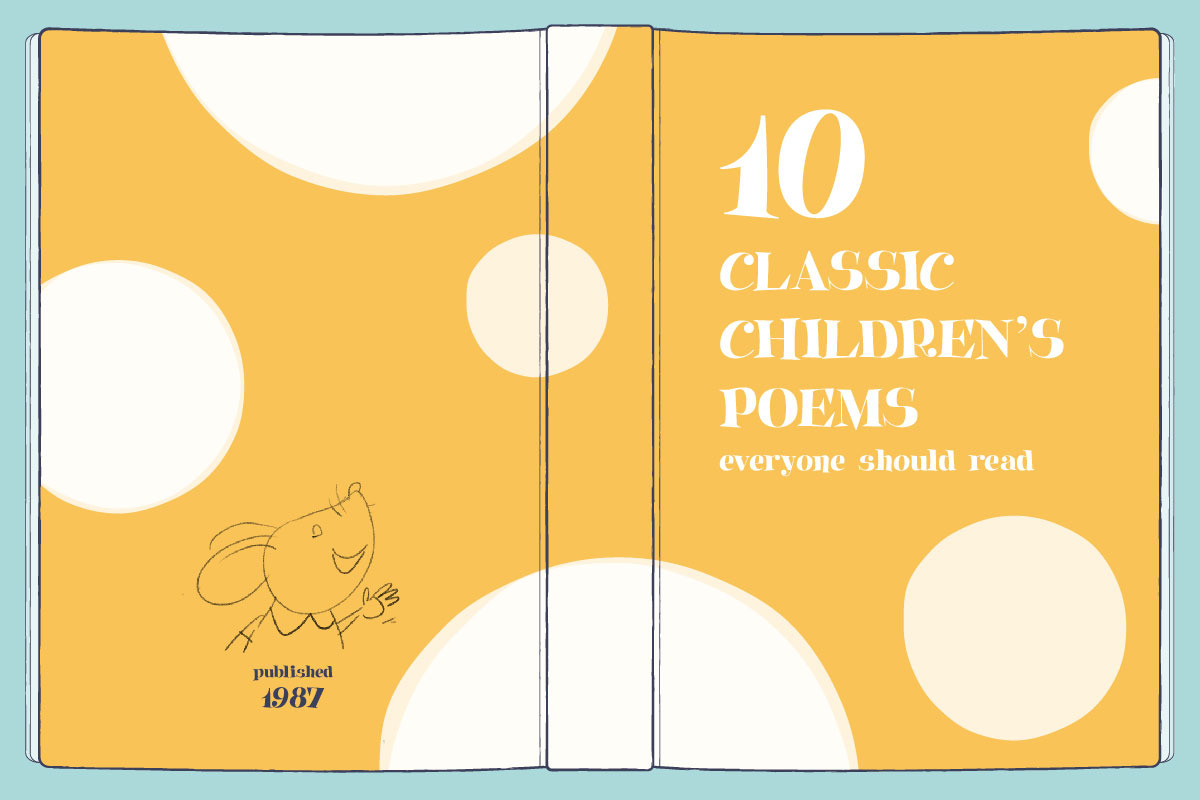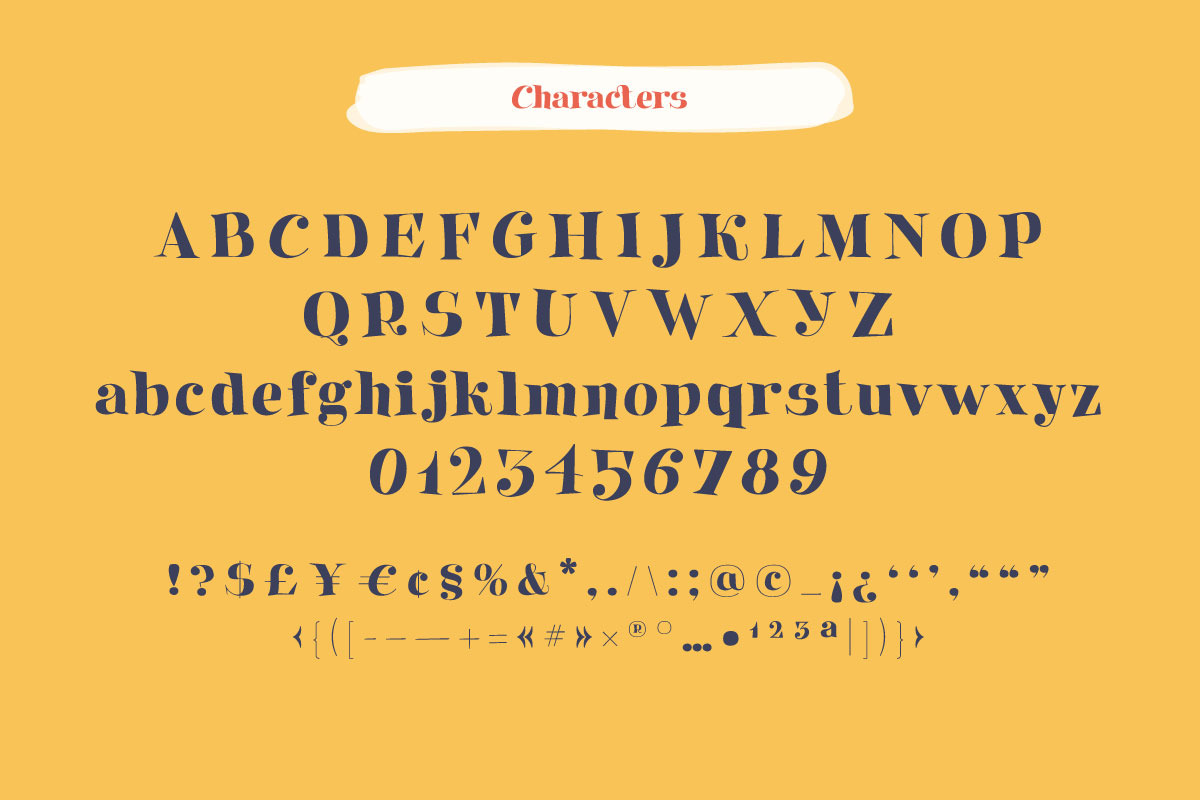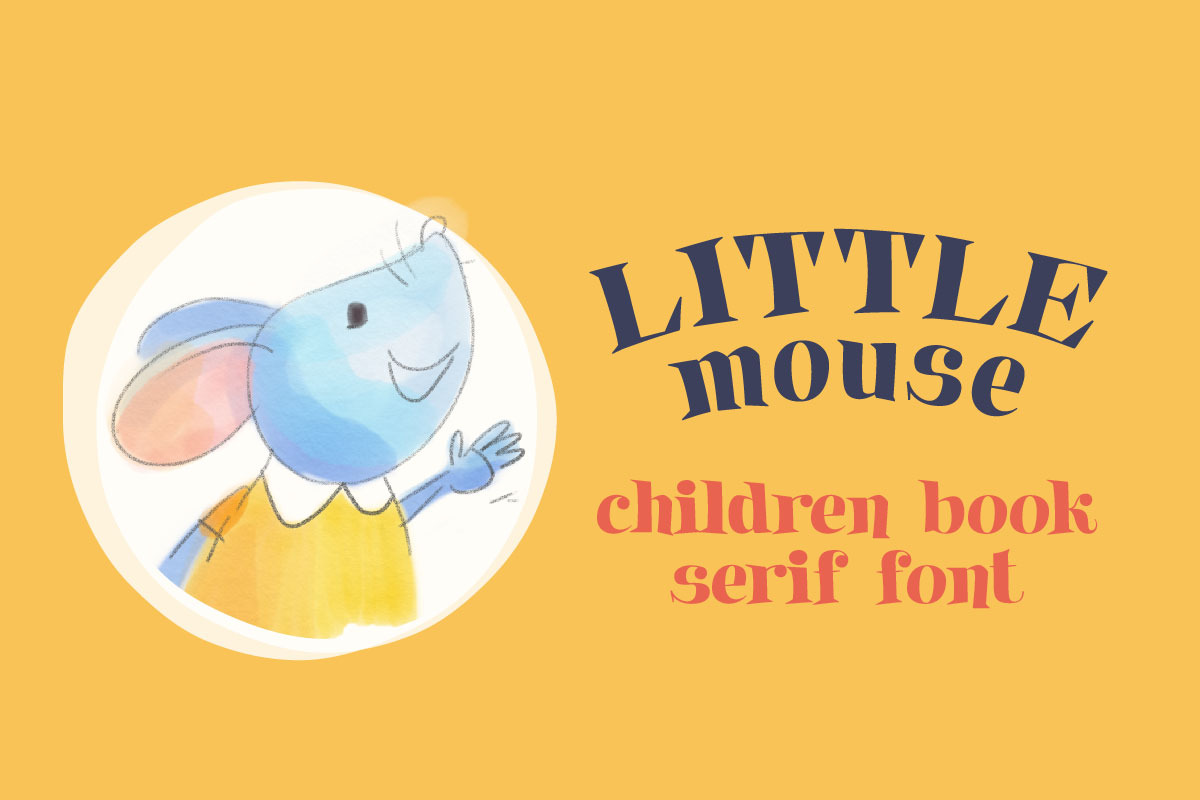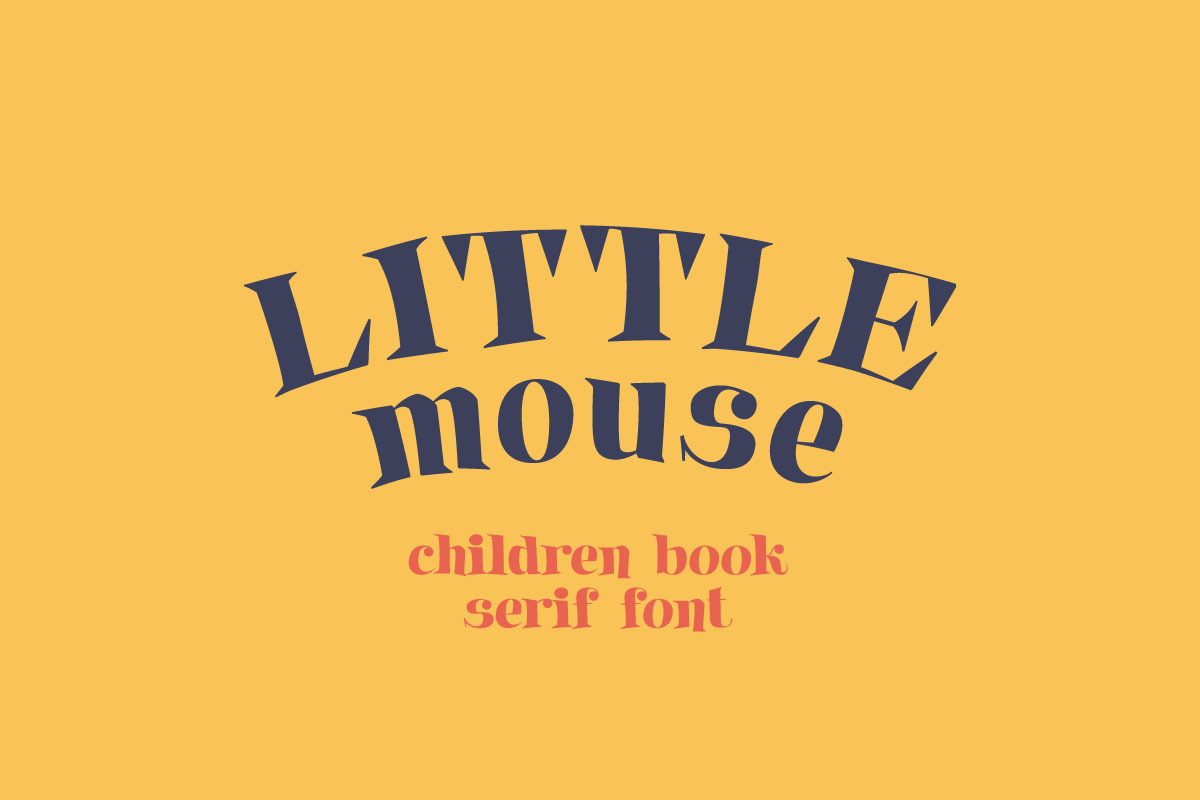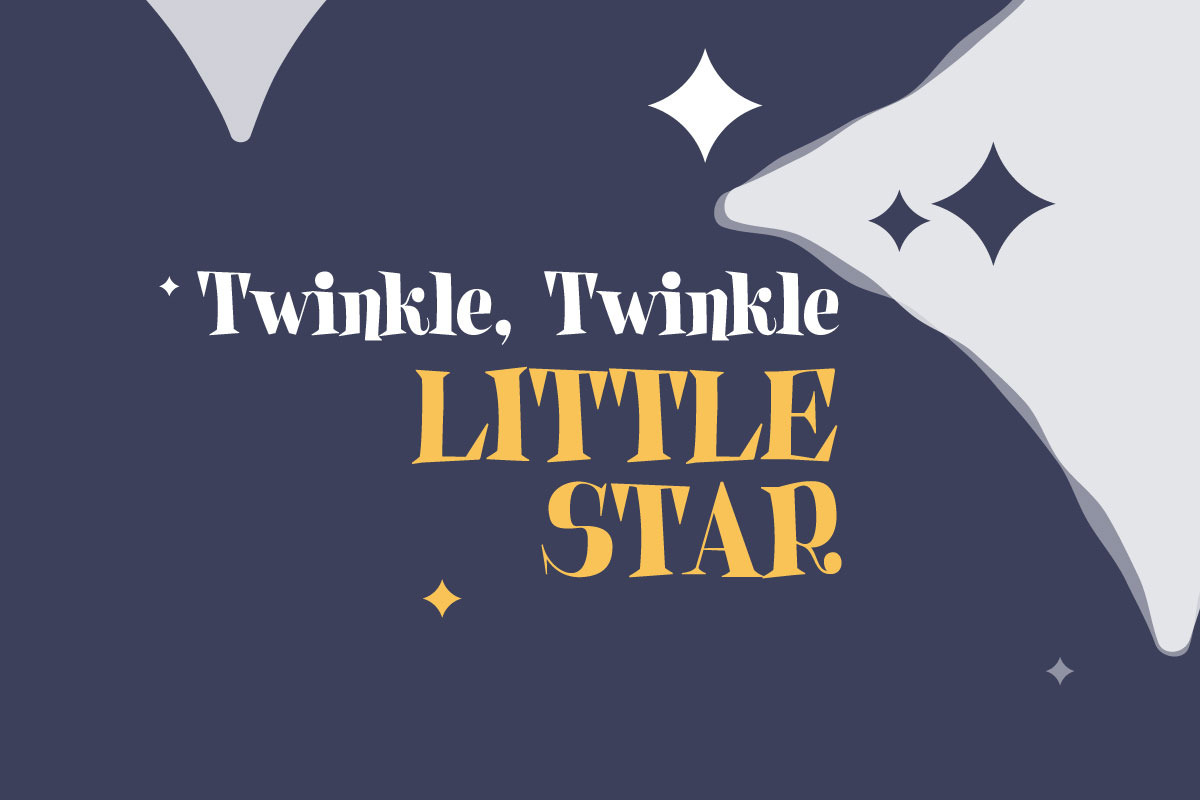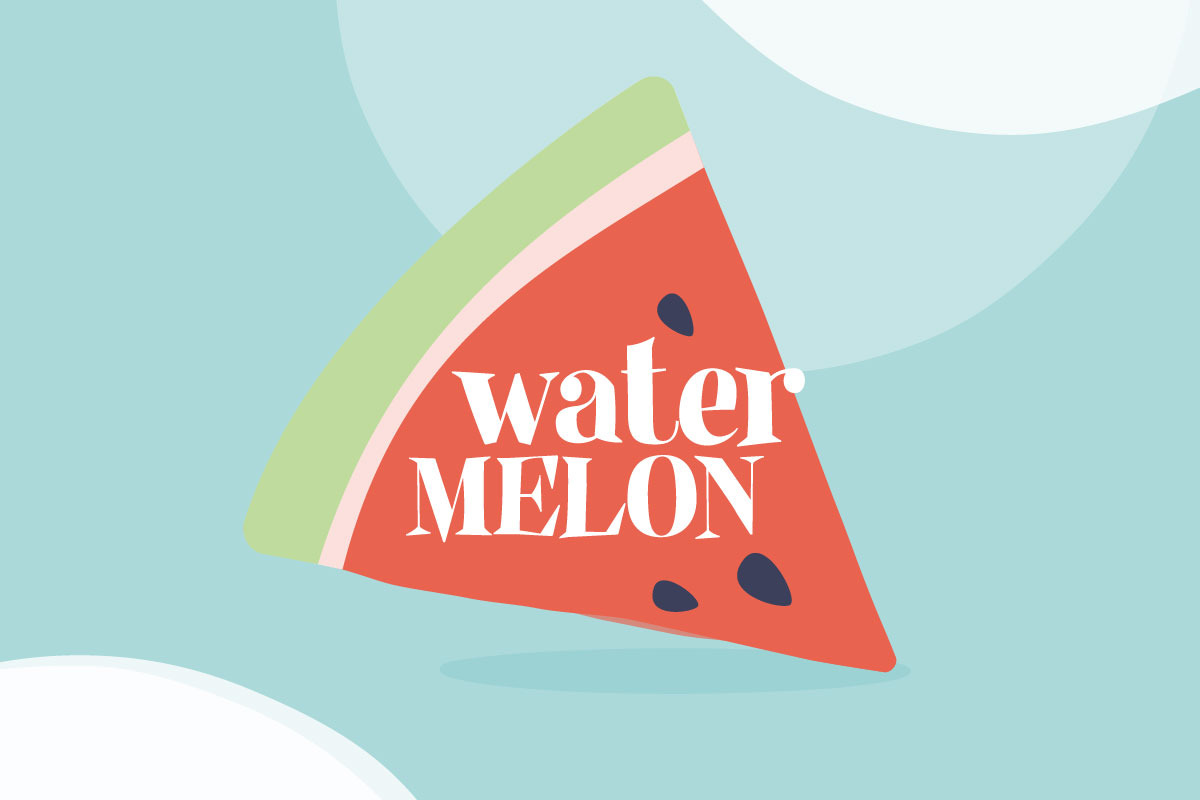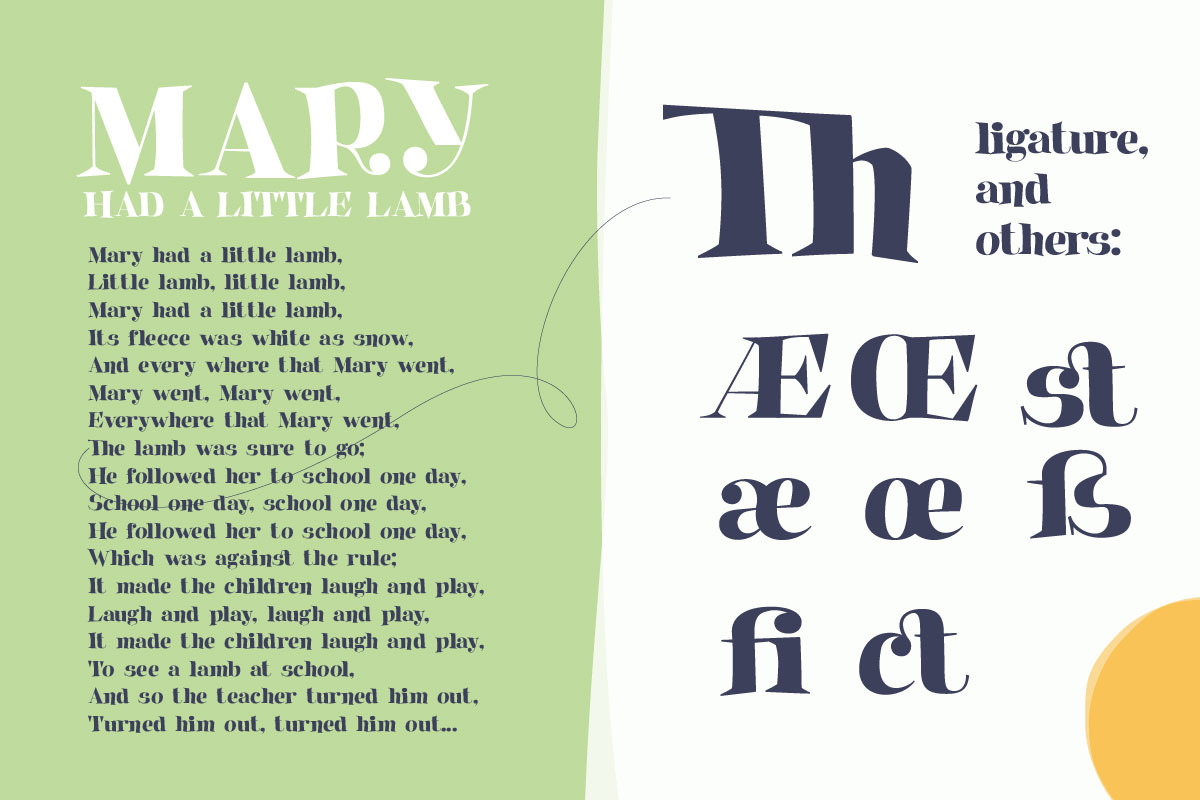
LittleMouse children book serif font
Introducing my new children serif typeface LittleMouse. Perfect to use in any children book, circus posters, cute identity, etc.